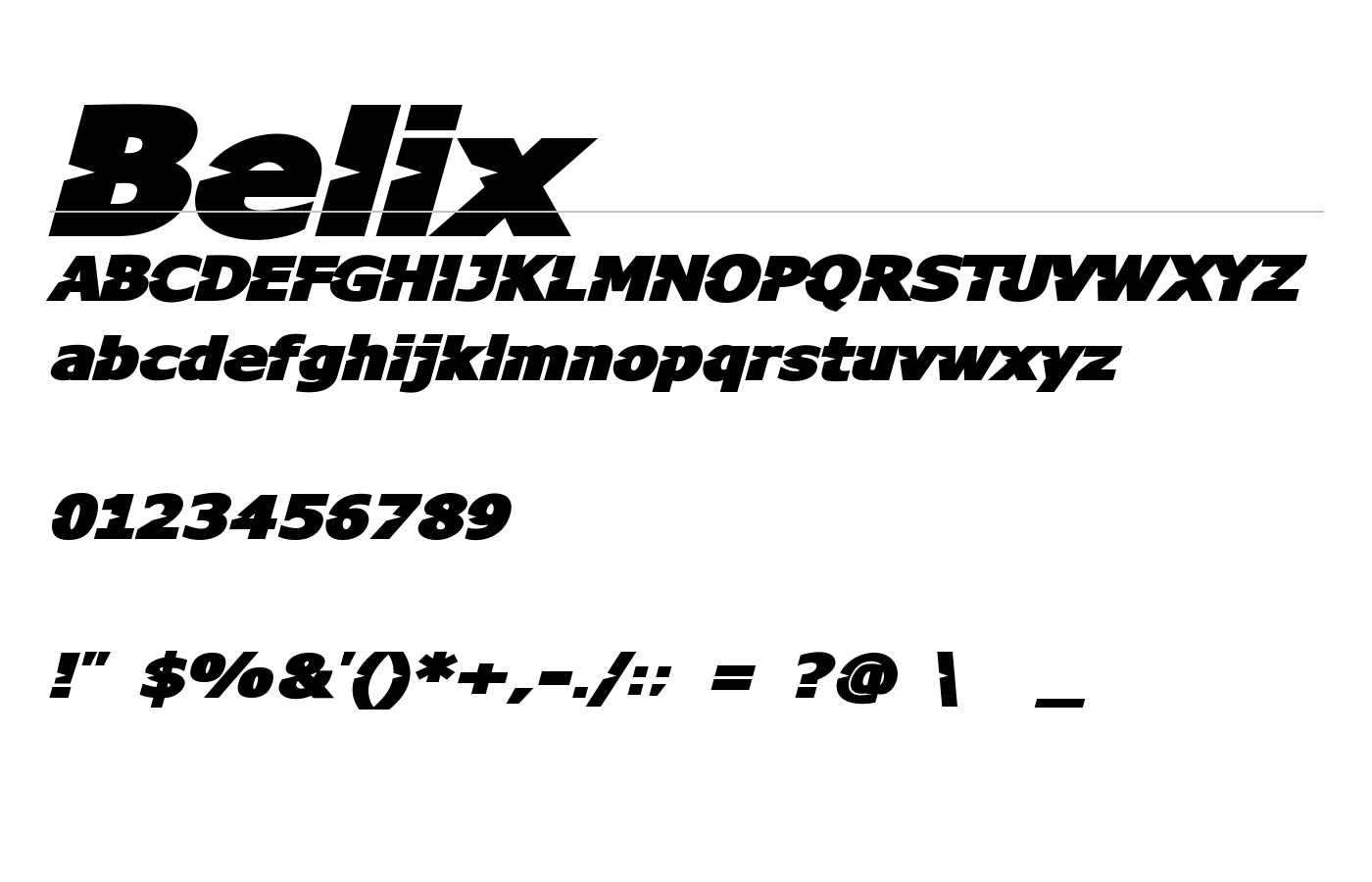
Belix is a bold, italicized sans serif font with a strong, dynamic presence and compact width, giving it an energetic and modern feel. Its thick strokes and slanted letterforms make it ideal for eye-catching headlines, logos, and branding that require a confident, forward-moving look. This font works well in sports, tech, or any design that wants to convey speed, power, and impact.
Belix Font
About Belix Font
| Font family | Belix Font |